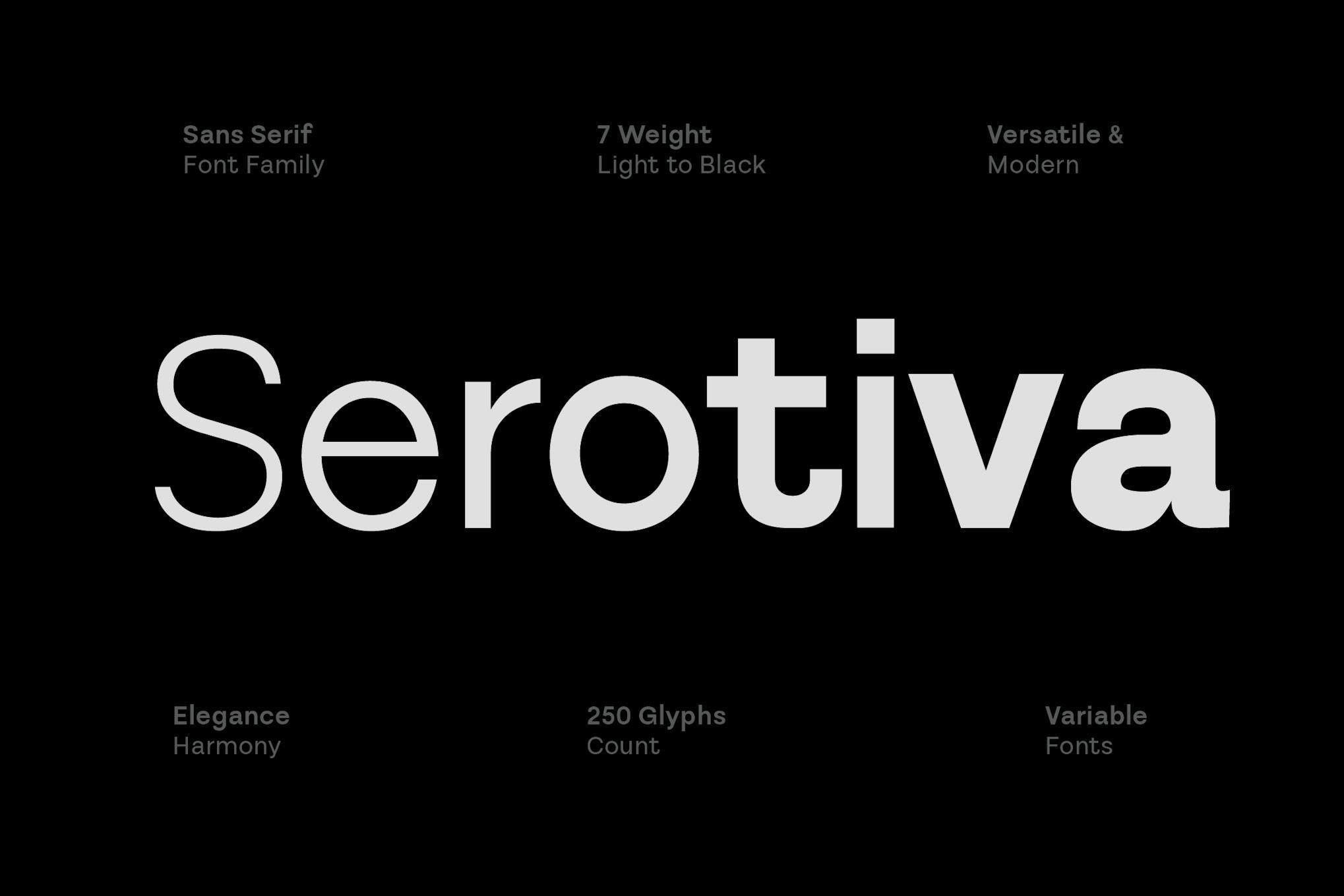
Serotiva Sans Serif Font
Serotiva Sans Serif Font is perfect for modern branding projects, corporate identity design, website headers, logo creation, magazine layouts, book covers, poster design, social media graphics, and professional presentations.
What makes Serotiva Sans Serif Font exciting is its perfect balance between contemporary elegance and timeless readability. This versatile typeface combines clean geometric shapes with subtle humanist touches, creating a sophisticated appearance that works exceptionally well across both digital and print media. The font's carefully crafted letterforms ensure excellent legibility at any size, while its distinctive character adds personality without overwhelming the message.
Serotiva Sans Serif Font family includes multiple weights and styles: Regular, Light, Medium, Bold, ExtraBold, and their corresponding italic versions. Each weight maintains the font's core aesthetic while providing designers with flexible options for creating hierarchical typography systems and dynamic layouts.
Professional designers appreciate how Serotiva Sans Serif Font performs across various applications. Its optimized spacing and kerning ensure consistent performance in both body text and display usage. The font's neutral yet distinctive personality makes it suitable for industries ranging from technology and finance to fashion and lifestyle brands.
The comprehensive character set includes multilingual support, making Serotiva Sans Serif Font Free Download an excellent choice for international projects. Special features include carefully designed numerals, punctuation marks, and symbols that maintain visual harmony with the main letterforms.